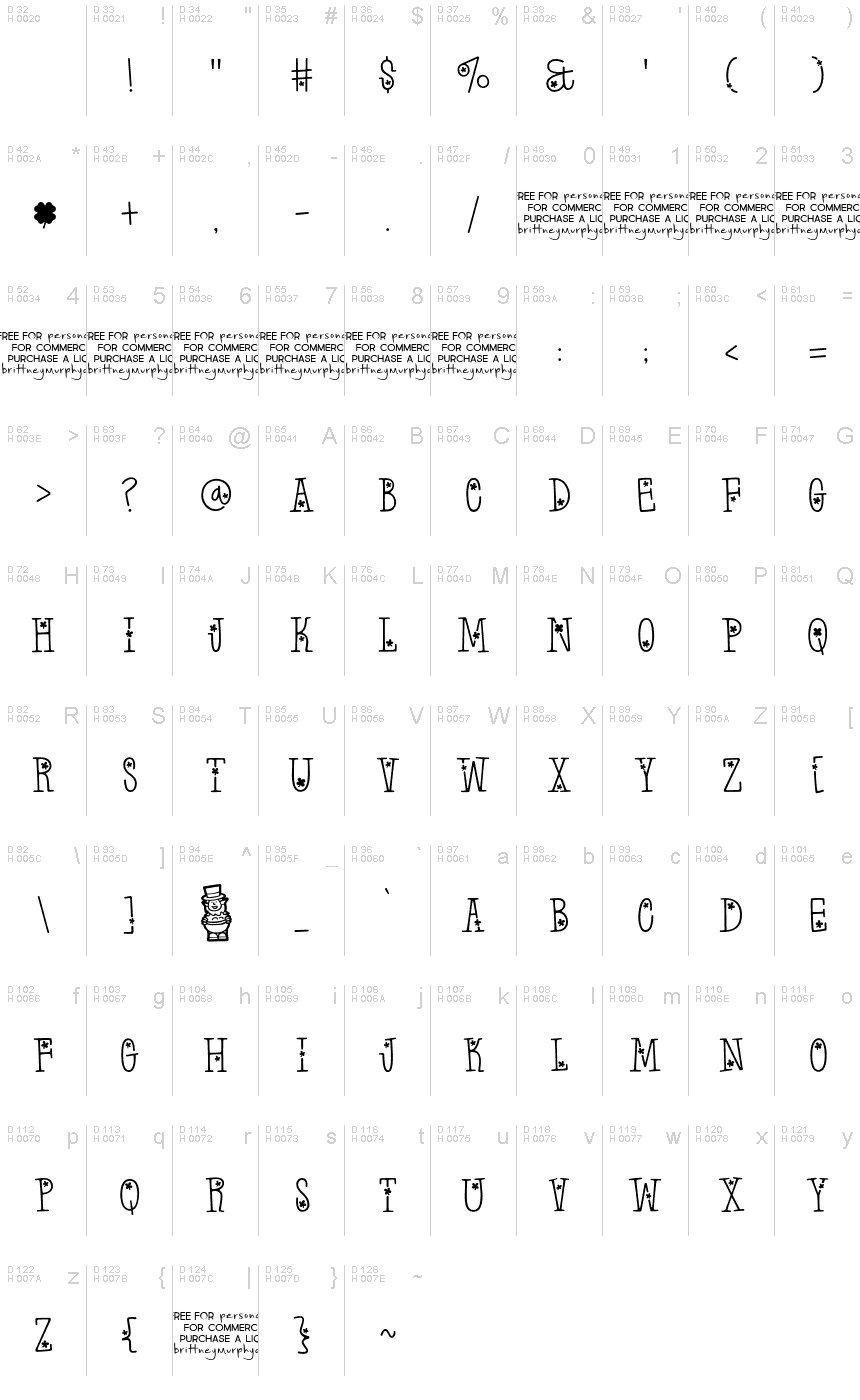
Irish^Clovers
A fun, St. Patricks Day font designed by Brittney Murphy! Use the circumflex ^ for the leprechaun, use the asterisk * for the big clover, and use the bullet for the small clover.